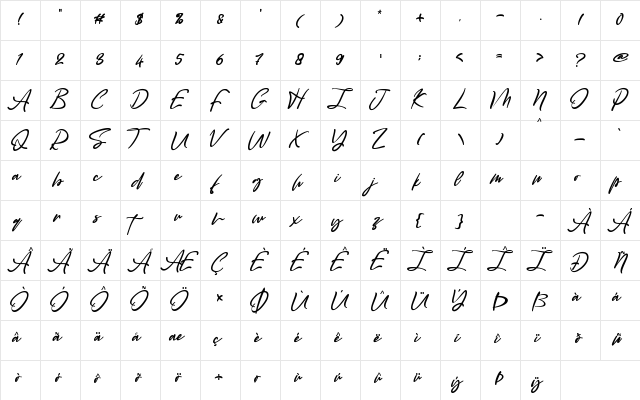
Alexandroupoli Regular
| Designer | Letterara 2020 |
Design Context for Alexandroupoli Typeface
Alexandroupoli is a composed and adaptable typeface that performs quietly and consistently across a wide range of design contexts.